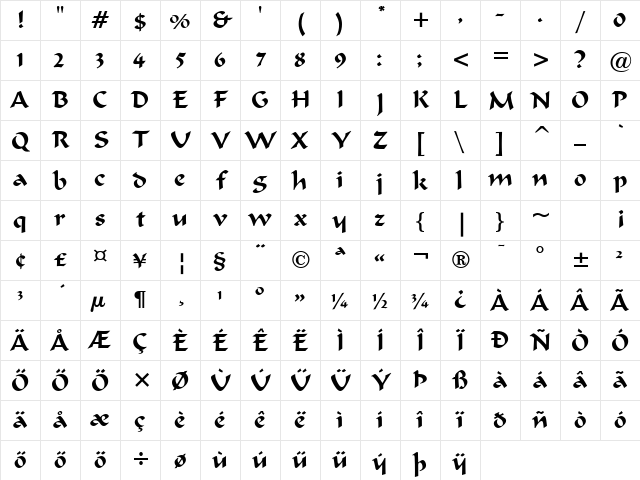
Formal-Script421 HU Normal
Design Context for Formal-Script421 HU
Formal-Script421 HU flows with the natural rhythm of handwritten lettering, making it ideal for designs that call for warmth and personal expression.
Font Pairing: Combine Formal-Script421 HU with a simple geometric sans for maximum contrast - the tension between flowing curves and clean structure is a classic typographic pairing.
Pro Tip: Use Formal-Script421 HU for short runs of text - names, titles, or taglines. Extended body copy in script faces tires the eye quickly.